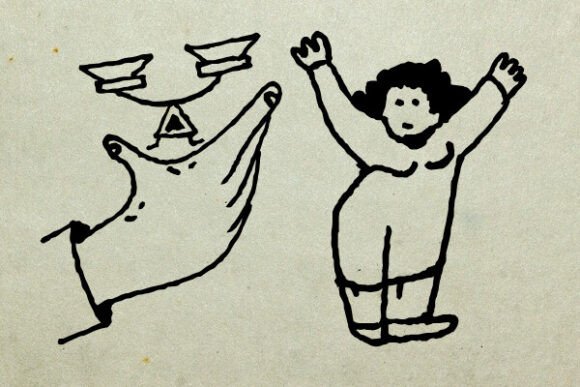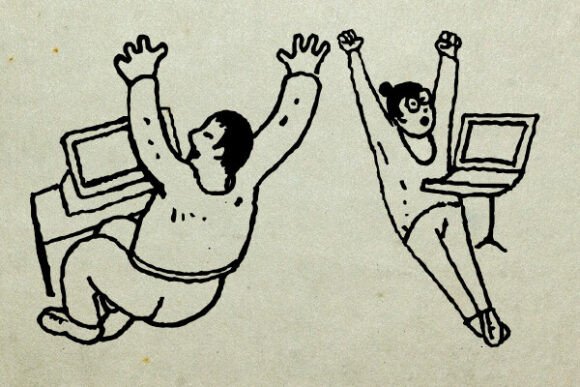
Introducing Events Font: The Cheerful Dingbat for Your Designs
Are you a designer or crafter looking for a unique and eye-catching font to add to your projects? Look no further than Events Font, a cheerful dingbat that’s sure to make your designs stand out. With its playful and upbeat vibe, Events Font is perfect for a variety of applications, from t-shirts and brochures to flyers and more.
What is Events Font?
Events Font is a dingbat font, which means it’s a collection of symbols and icons rather than traditional letters and numbers. This font is made up of a wide range of fun and festive icons, including stars, balloons, confetti, and more. Each icon is carefully designed to be bold, colorful, and attention-grabbing, making Events Font the perfect choice for designs that need to pop.
Why Use Events Font?
So why should you choose Events Font for your designs? Here are just a few reasons:
- Unique and eye-catching: Events Font is a one-of-a-kind dingbat that’s sure to make your designs stand out from the crowd. Whether you’re creating a t-shirt, brochure, or flyer, this font is guaranteed to grab attention.
- Versatile: Events Font can be used in a wide range of applications, from party invitations and decorations to marketing materials and branding. The possibilities are endless!
- Scalable: Events Font is designed to be scalable, which means it looks great at any size. Whether you’re creating a tiny icon or a giant billboard, this font will remain clear and legible.
Design Ideas Using Events Font
Events Font is a versatile dingbat that can be used in a wide range of design applications. Here are a few ideas to get you started:
- T-shirts and apparel: Add a fun and playful touch to your t-shirts and apparel with Events Font. This font is perfect for party tees, event merchandise, and more.
- Brochures and flyers: Make your marketing materials stand out with Events Font. This font is great for creating eye-catching headlines and adding visual interest to your designs.
- Party invitations: Create custom party invitations that match your event’s theme with Events Font. This font is perfect for birthday parties, weddings, and other celebrations.
- Social media graphics: Add a pop of color and fun to your social media graphics with Events Font. This font is great for creating custom graphics, such as Facebook posts and Instagram stories.
Events Font is a cheerful dingbat that’s sure to add a touch of fun and personality to your designs. With its wide range of icons and easy-to-use design, this font is perfect for designers and crafters of all skill levels. Whether you’re creating t-shirts, brochures, flyers, or social media graphics, Events Font is a great choice. So why wait? Download Events Font today and start creating your own unique and eye-catching designs!